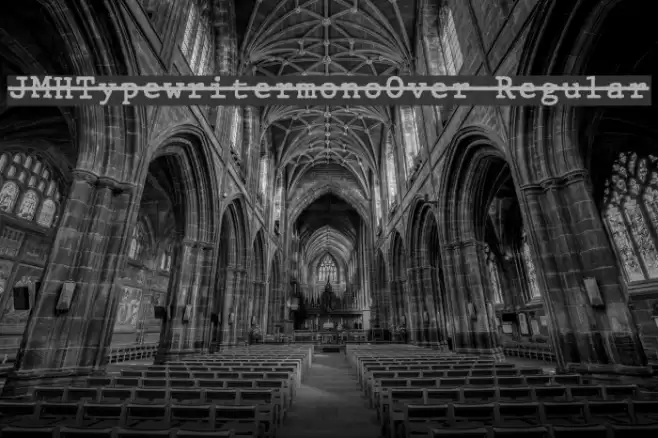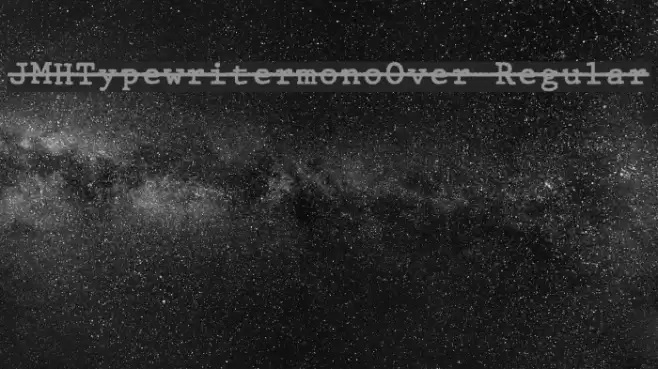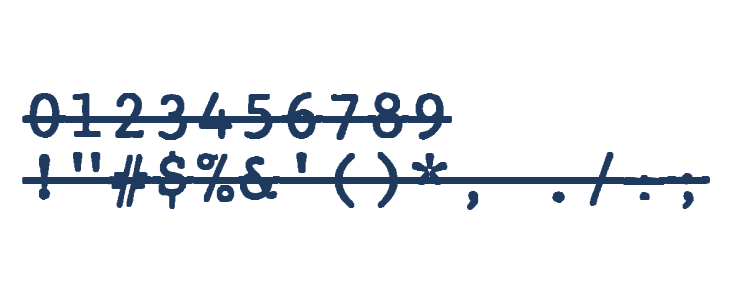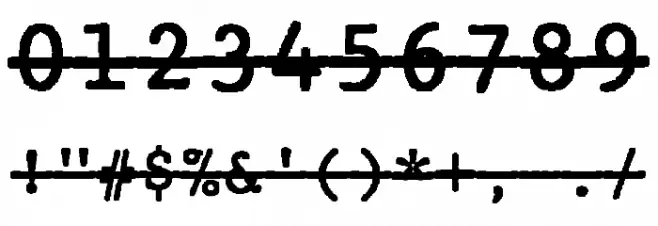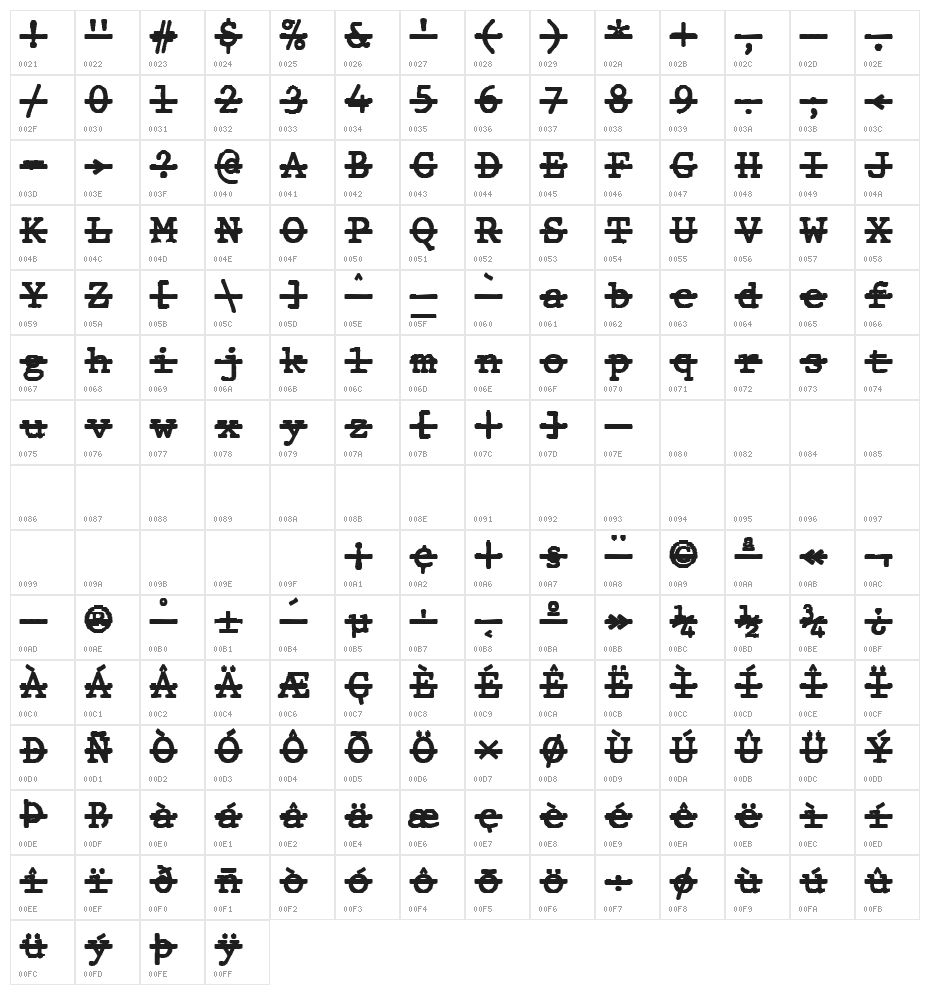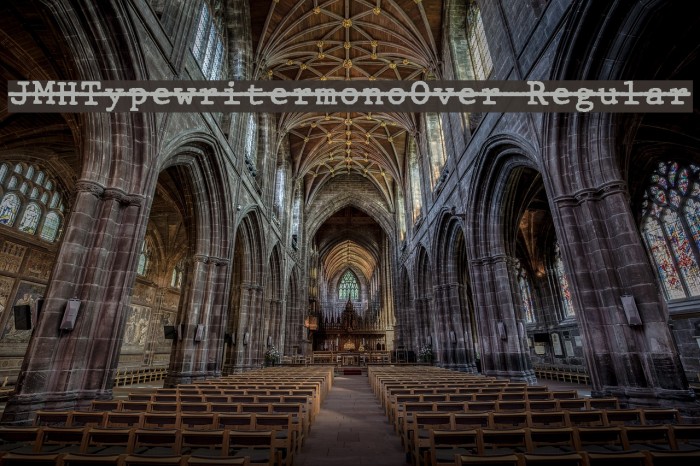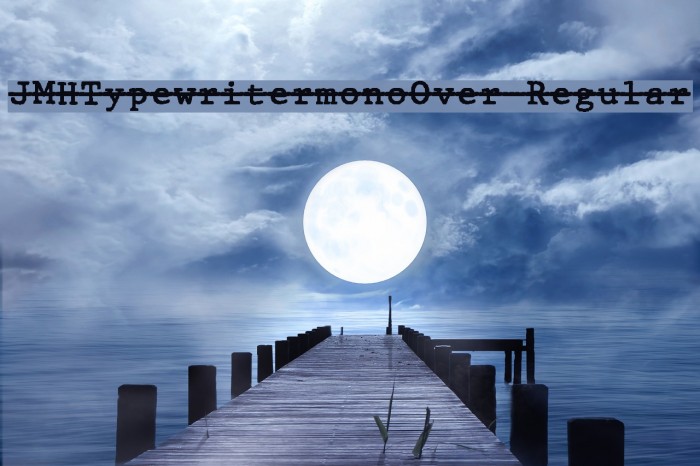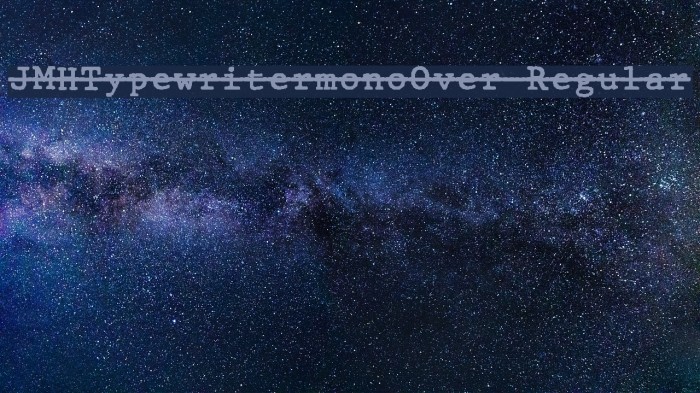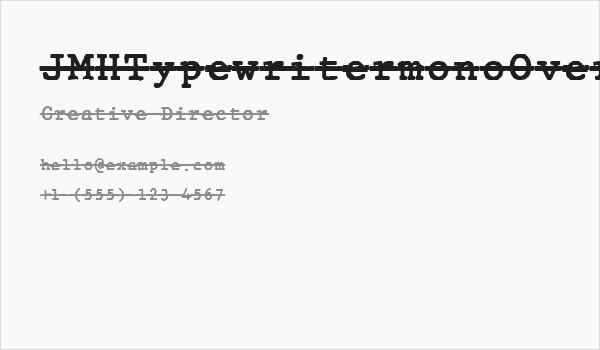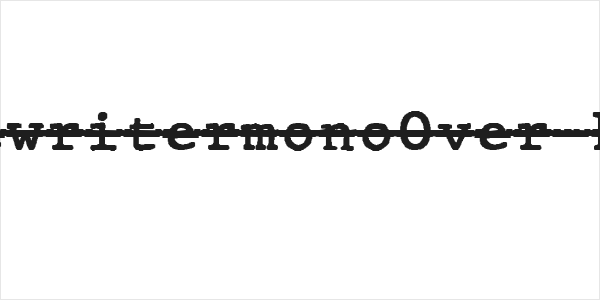
JMHTypewritermonoOver-Regular Font
JMHTypewritermonoOver-Regular Description
This typewriter-style font features a monospaced design, reminiscent of classic typewriter text. Each character is evenly spaced, creating a uniform appearance across the text. The letters have a slightly rough, textured look, adding to the vintage feel. The strokes are consistent in width, providing a balanced and clean aesthetic. The uppercase and lowercase letters maintain a traditional typewriter form, with distinct serifs and a mechanical precision. Numbers and special characters are clearly defined, enhancing readability.
A vintage, monospaced typewriter-style font with a textured appearance from Uncategorized fonts.
- Proposed Projects: Ideal for projects requiring a retro or vintage aesthetic, such as typewriter-themed designs, retro posters, or historical documents.
- Overall Style: Vintage